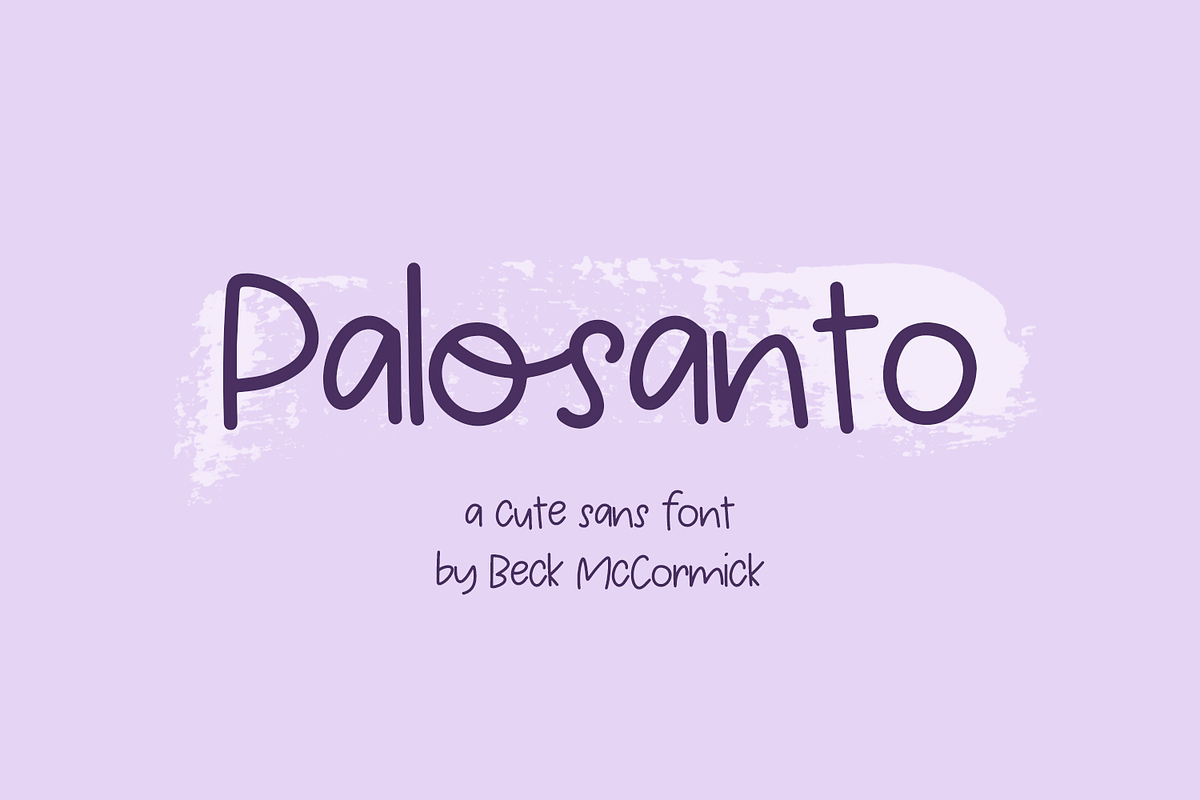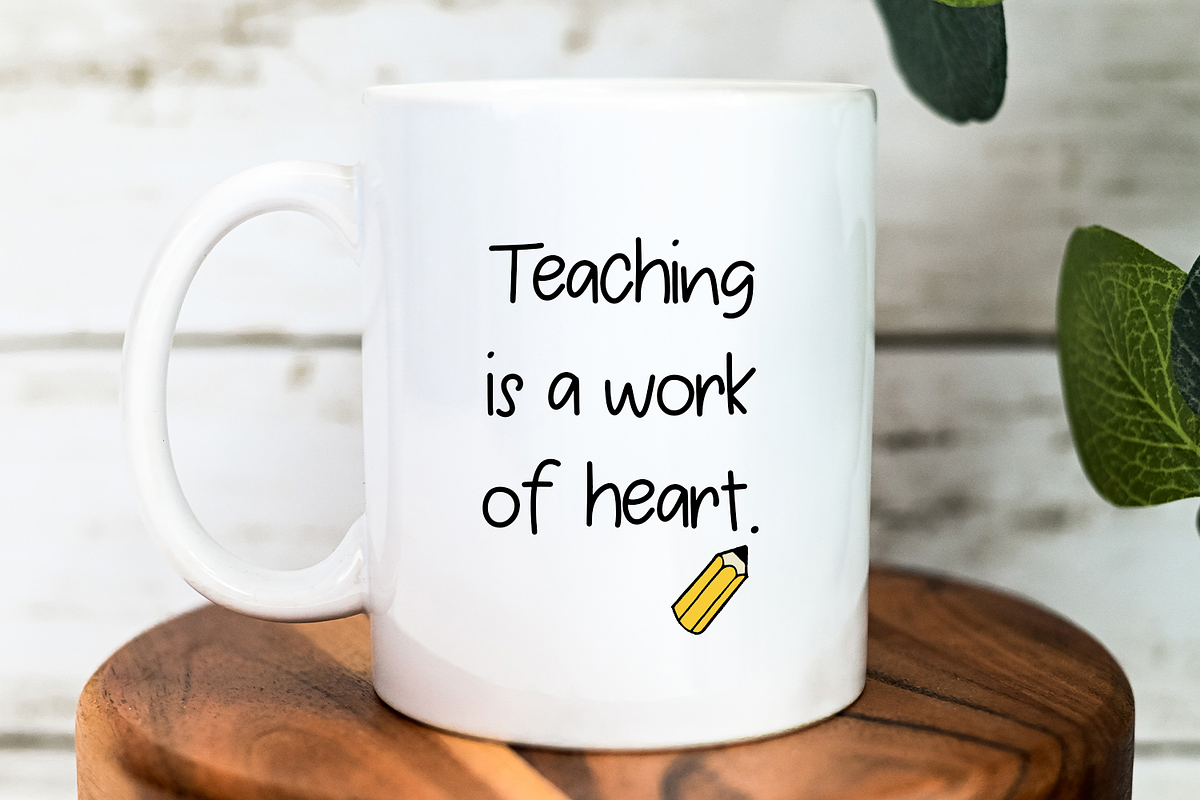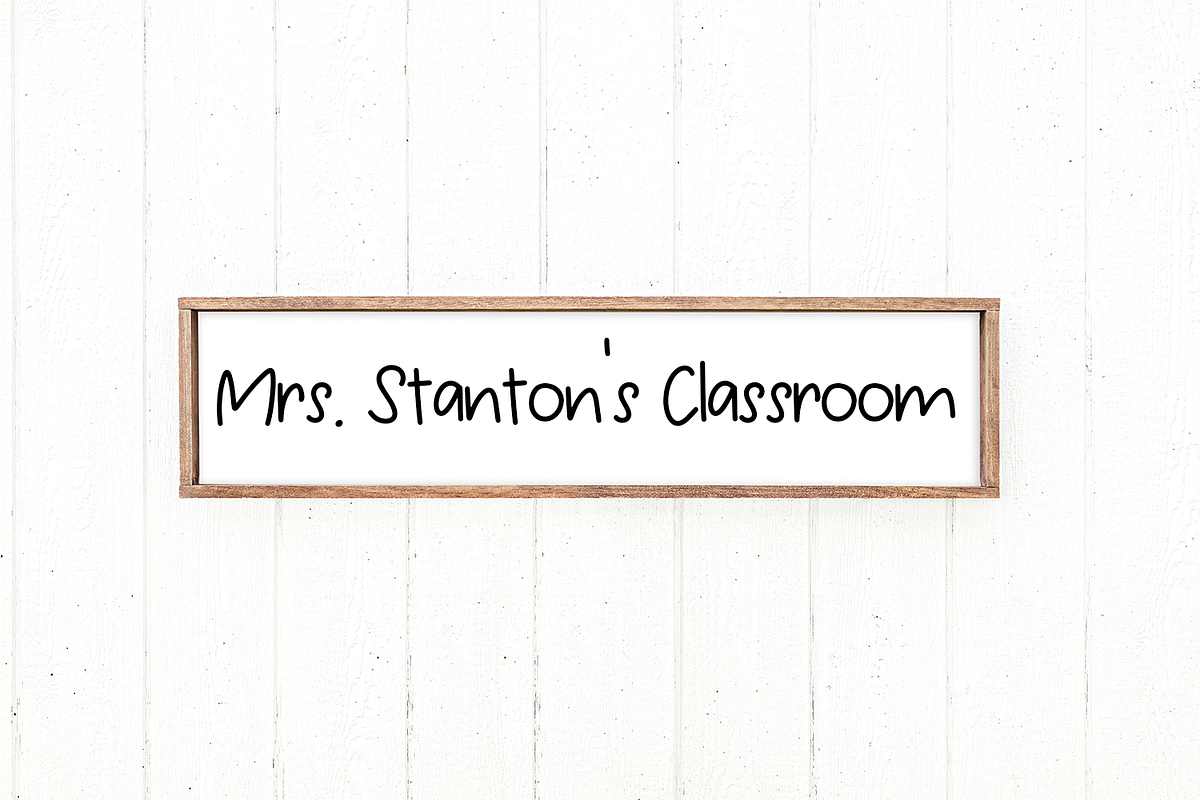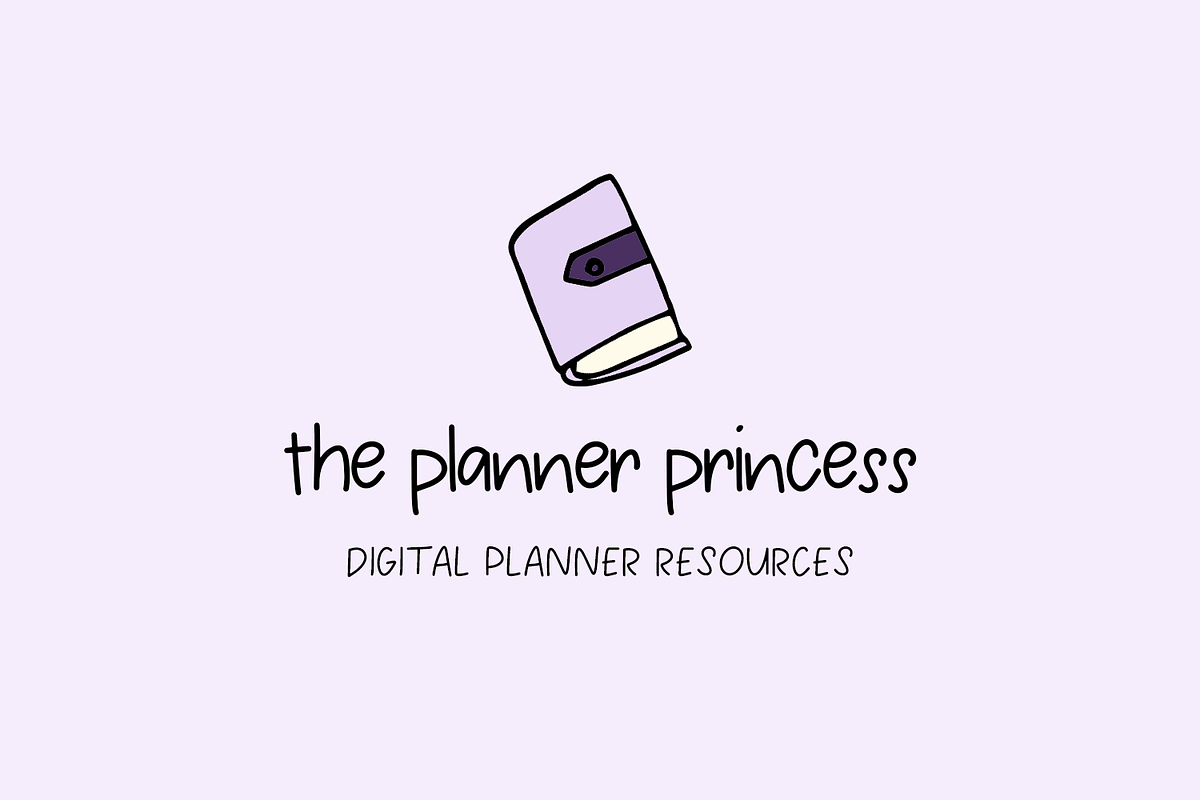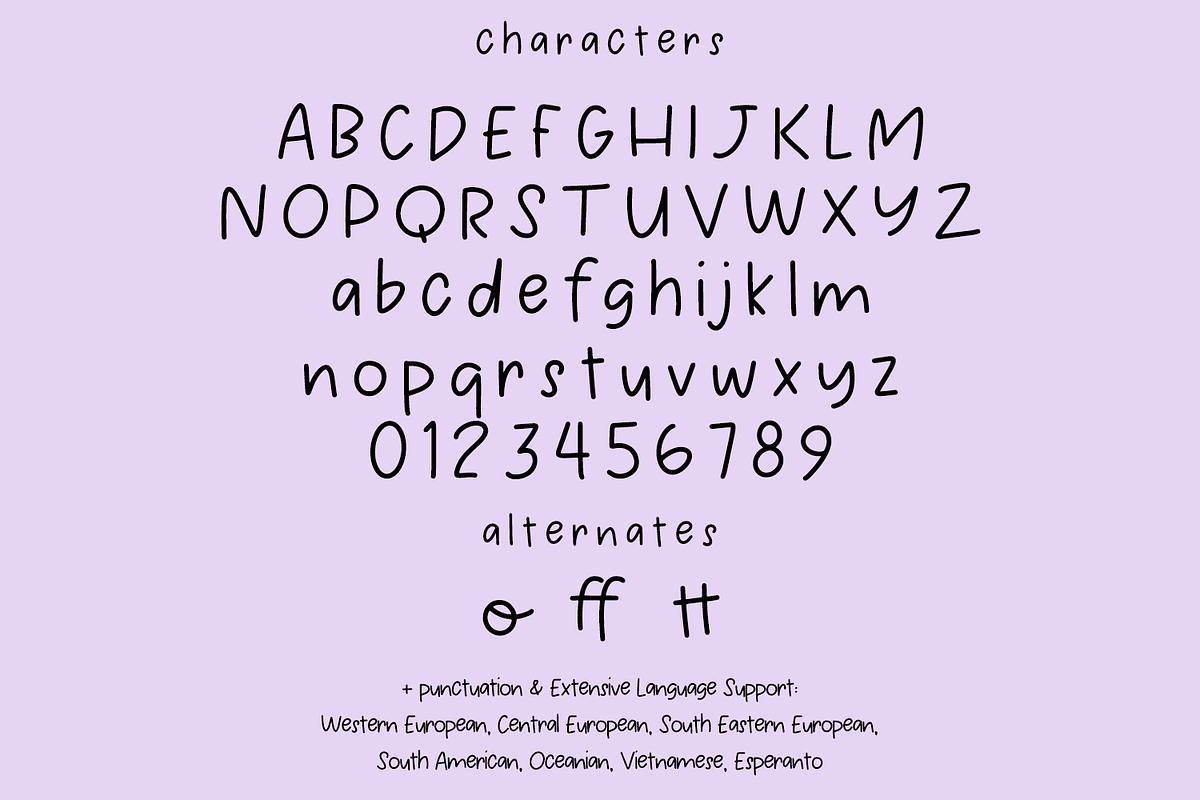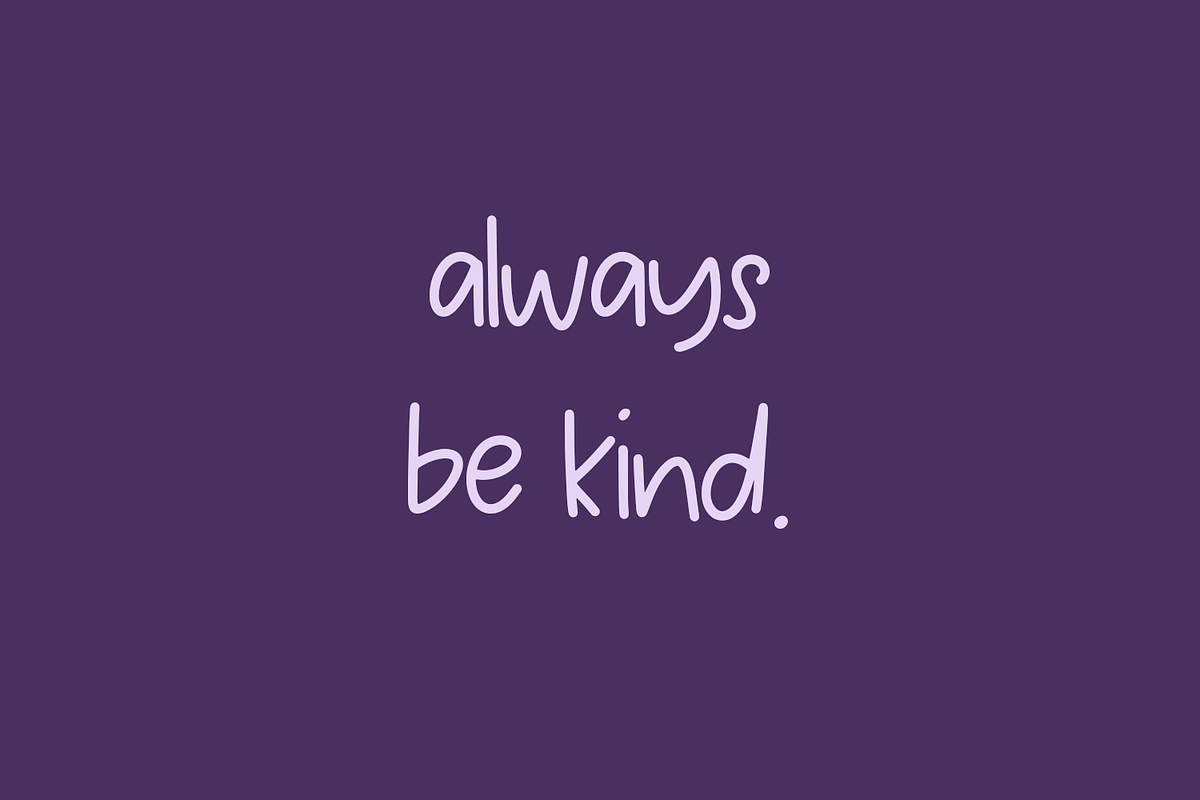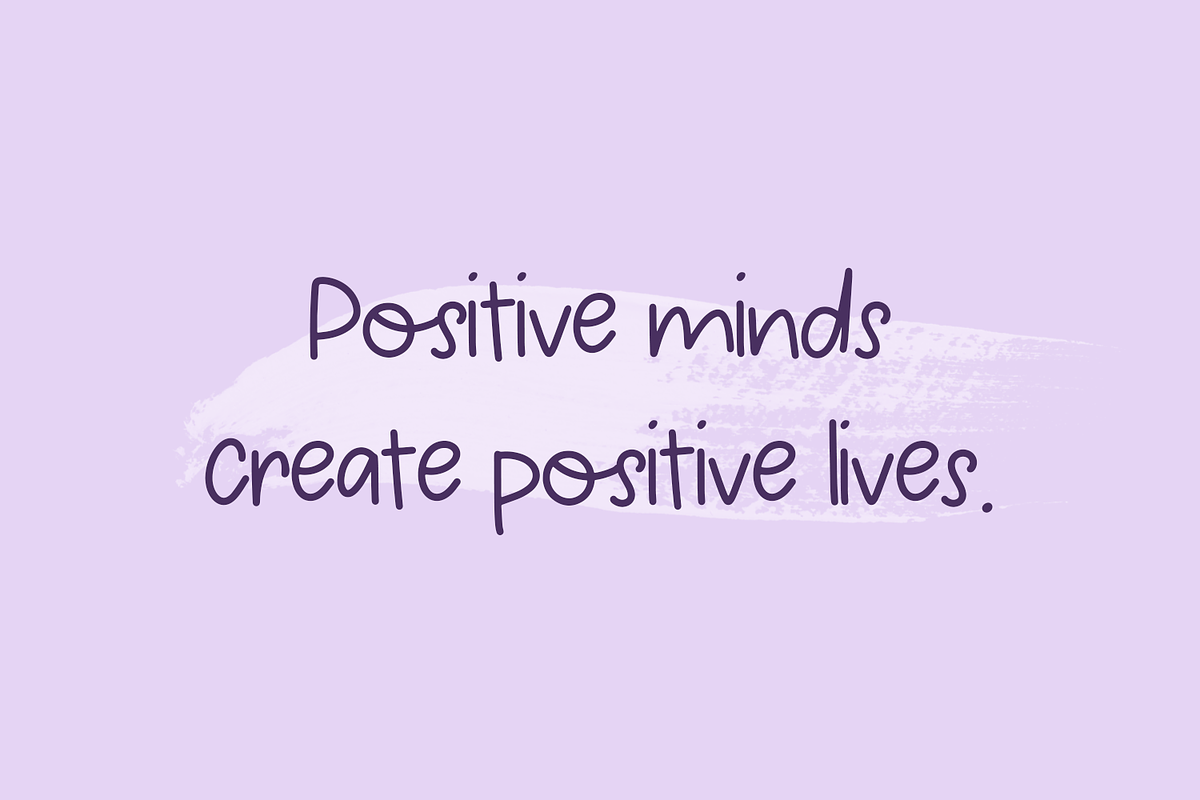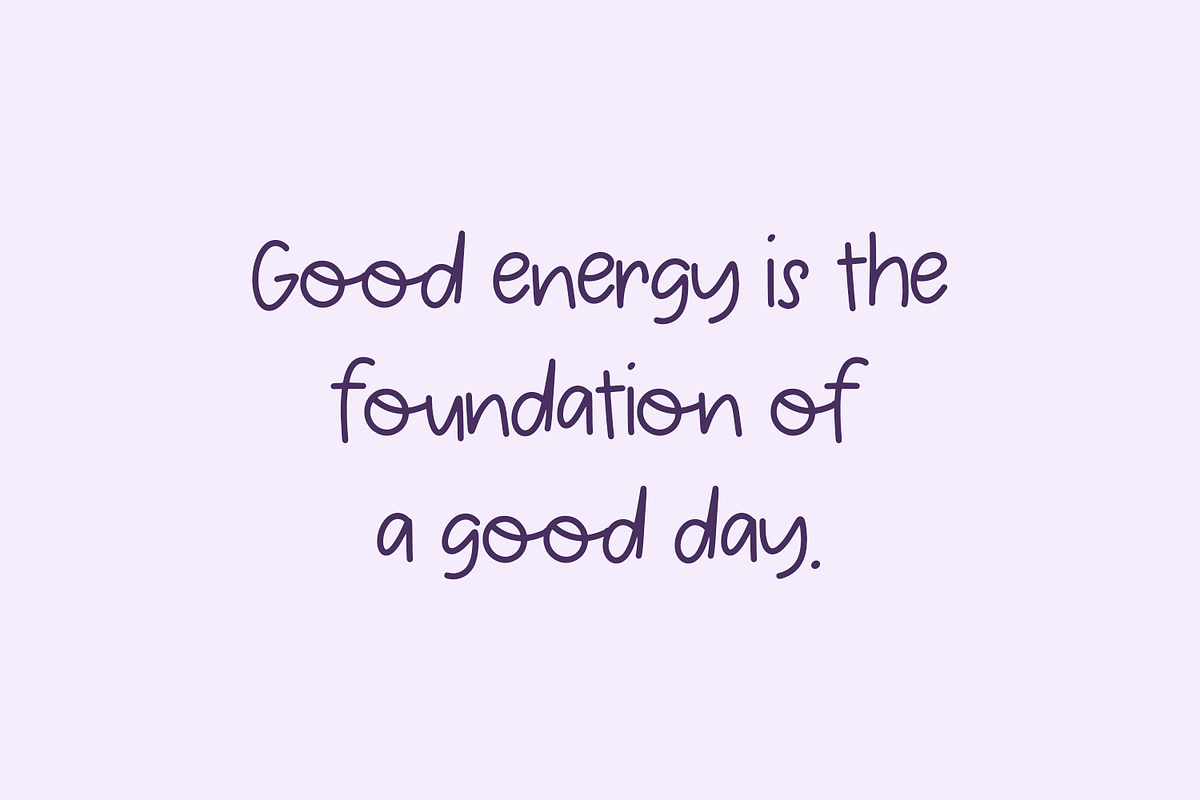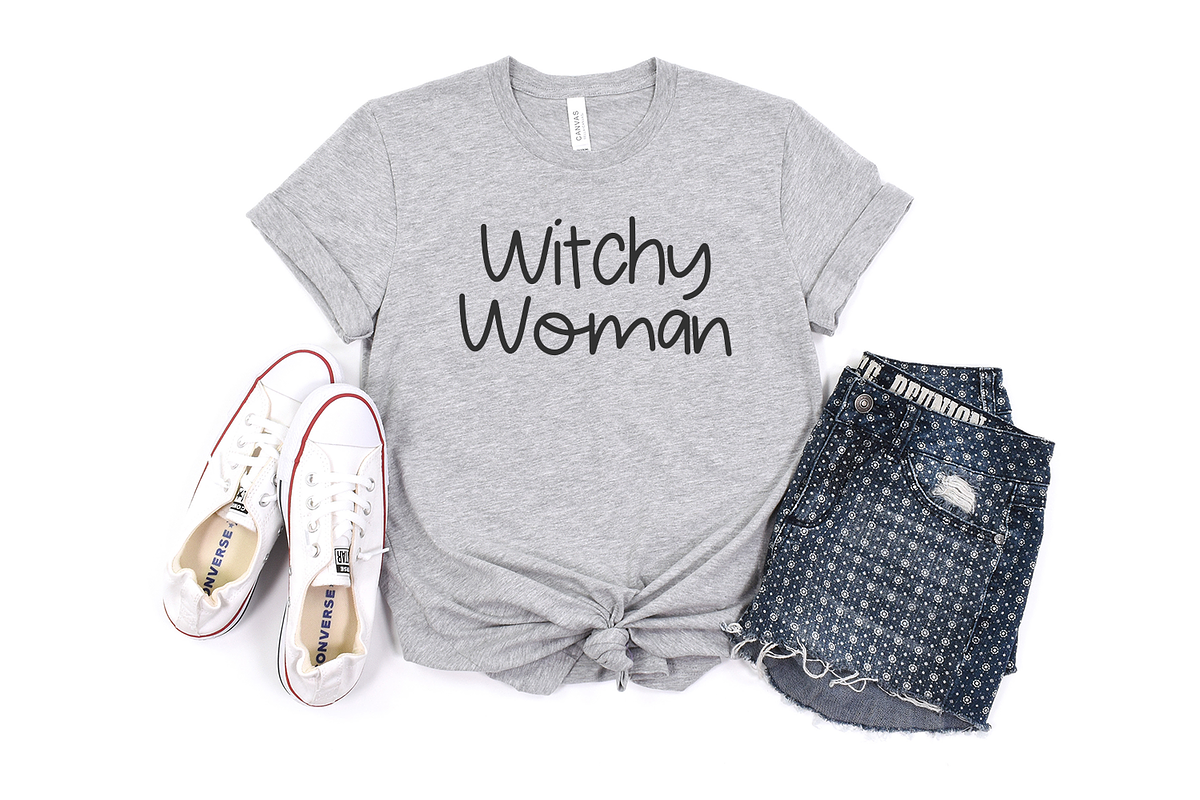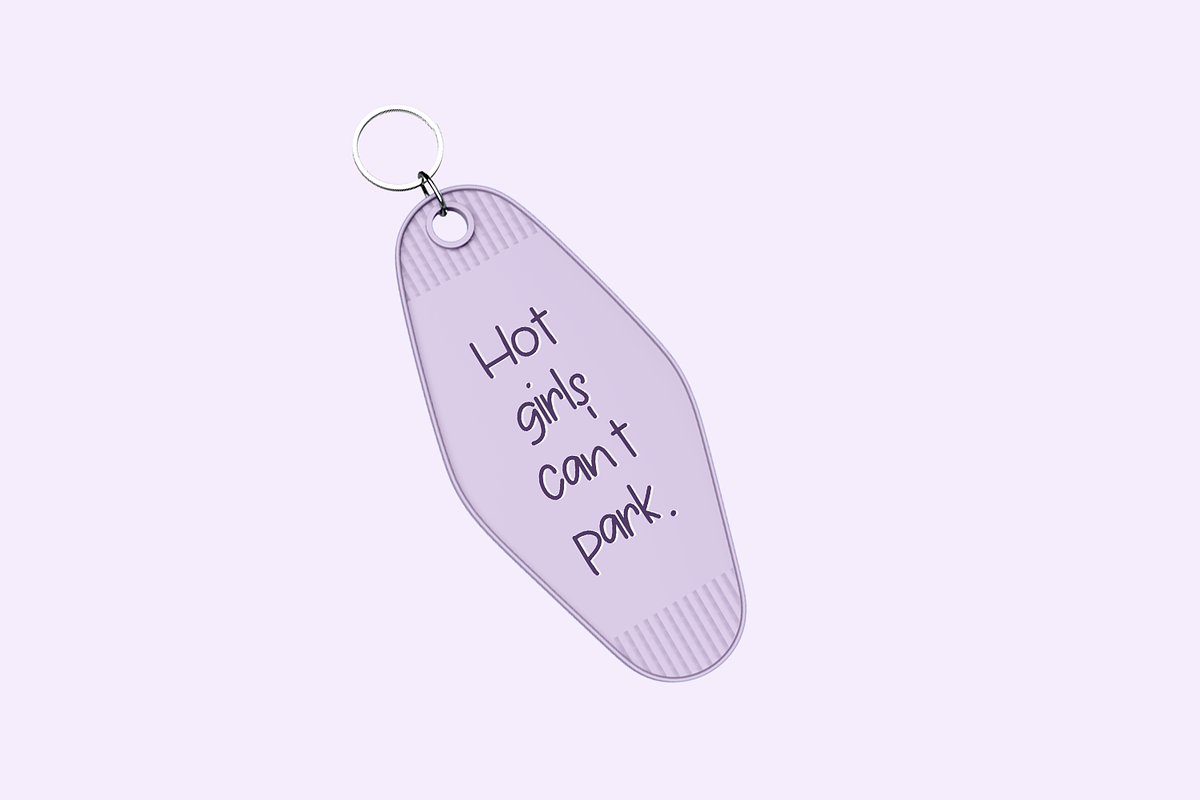
Palosanto Sans
Introducing Palosanto, a handwritten sans font. Palosanto Sans is neat & tidy, and would be best for digital planner apps like GoodNotes. You can also use it for note-taking apps to make your study notes effortlessly cute, but easy to read. Palosanto can also be used for other print design like magazines and flyers or printed marketing materials. This font can also be used for digital marketing materials and social media items!
Palosanto includes:
- full upper + lowercase characters
- numbers + punctuation
- 1 alternate o, and 2 ligatures, ff and tt
- Extensive Language Support: Western European, Central European, South Eastern European, South American, Oceanian, Vietnamese, Esperanto